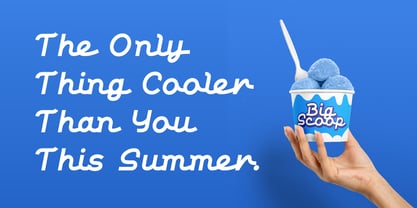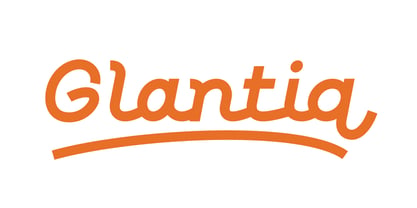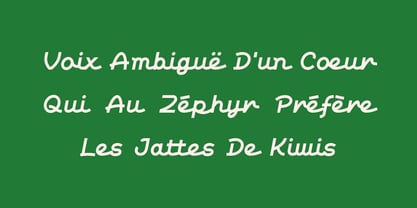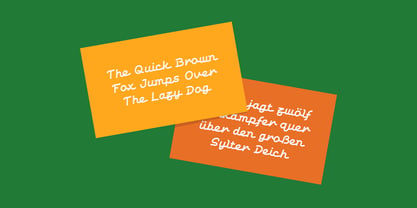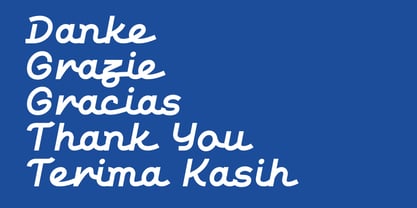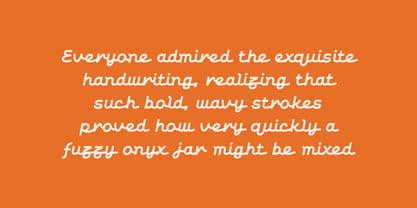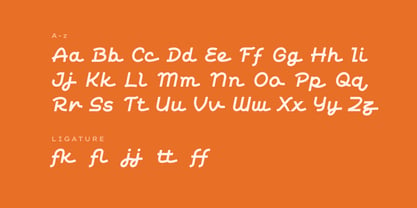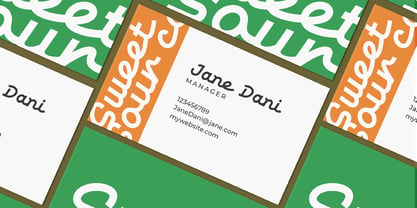
Glantiq
by Habitype
The Glantiq Font Family was designed by Fahrul Saputra and published by Habitype. Glantiq contains 1 styles. More about this family
Glantiq is a contemporary cursive font that masterfully blends the warmth of traditional handwriting with the precision of modern geometry. It stands out with its uniquely upright, non-slanted posture, trading the chaotic energy of casual script for a clean, stable, and highly deliberate rhythm.
The smooth, continuous strokes feature a perfectly balanced, uniform weight that ensures effortless legibility, while distinctive details give it an unmistakable typographic personality. Both friendly and sophisticated. modern cursive
Glantiq is an exceptional choice for modern branding, packaging, and logo designs that require a touch of authentic human connection without sacrificing professional clarity.